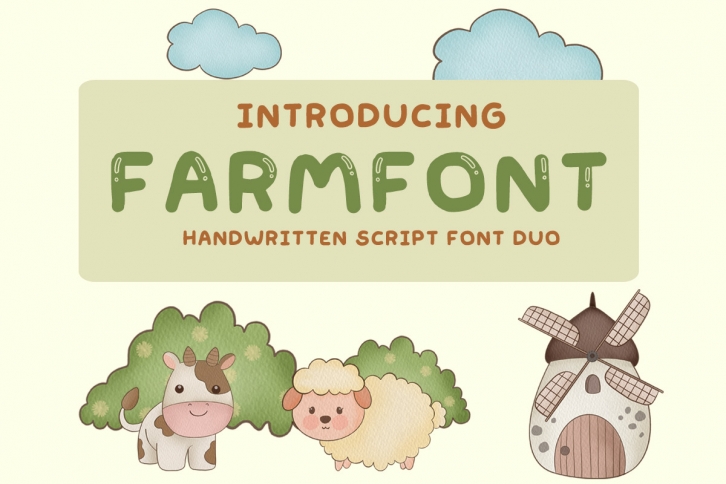
Farmmew is a cute and fun display font. It is perfect for product packaging, branding project, magazine covers, social media, wedding, or just used to express words above the background.